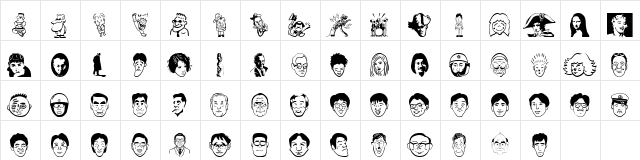
SakabePeople02 Regular
Design Context for SakabePeople02 Typeface
SakabePeople02 is a composed and adaptable typeface that performs quietly and consistently across a wide range of design contexts.